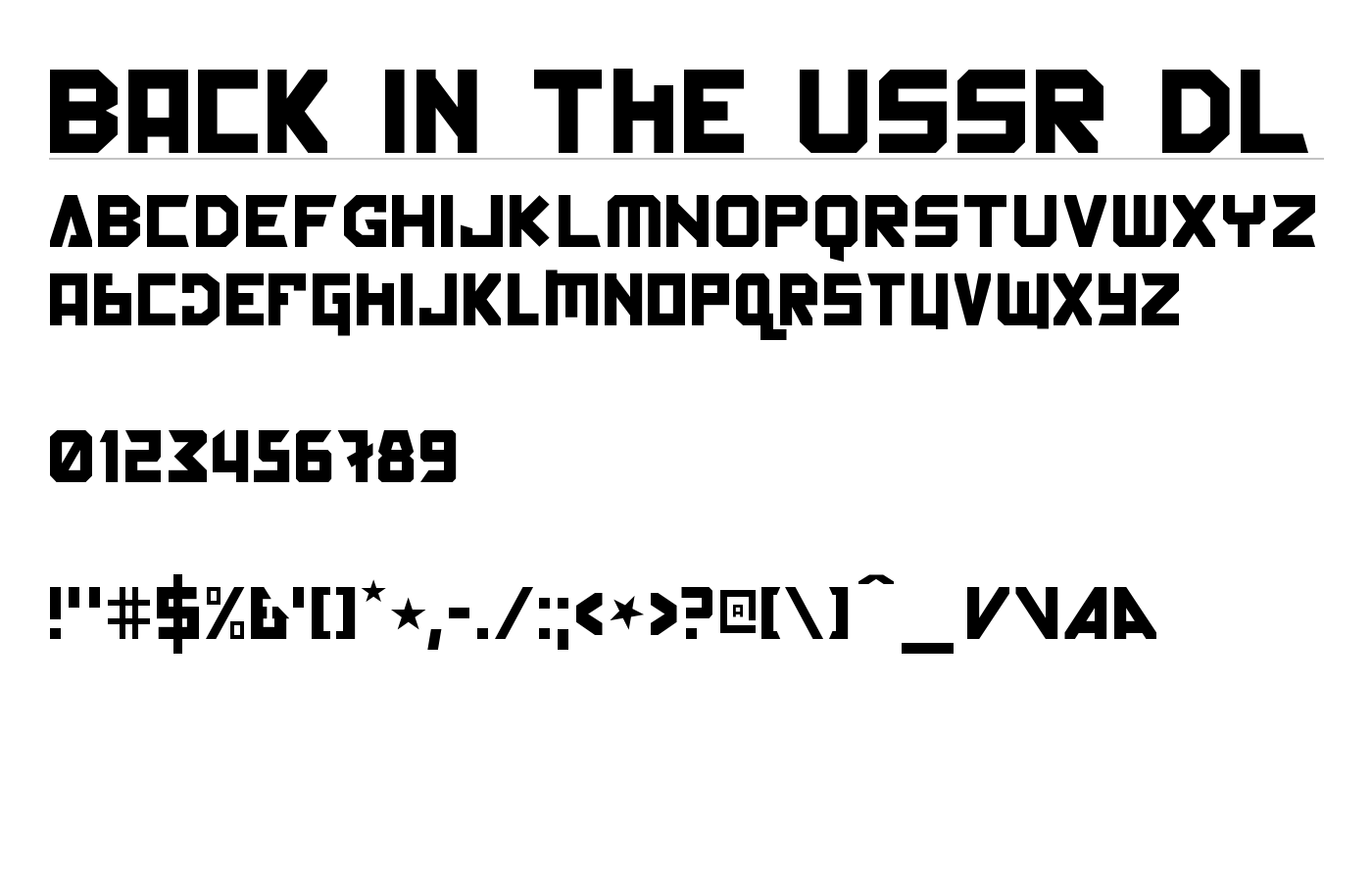
Back In The USSR DL is a bold, condensed sans serif font with sharp, angular lines and a geometric, industrial feel. Its strong, blocky letterforms evoke a retro-futuristic or Soviet-era aesthetic, making it ideal for edgy, vintage-inspired designs and impactful headlines. This font is perfect for posters, logos, and branding that seek to convey strength, authority, and a touch of nostalgia.
Back In The USSR DL Font
About Back In The USSR DL Font
| Font family | Back In The USSR DL Font |
| Designer | High-Logic - Erwin Denissen 1999 |